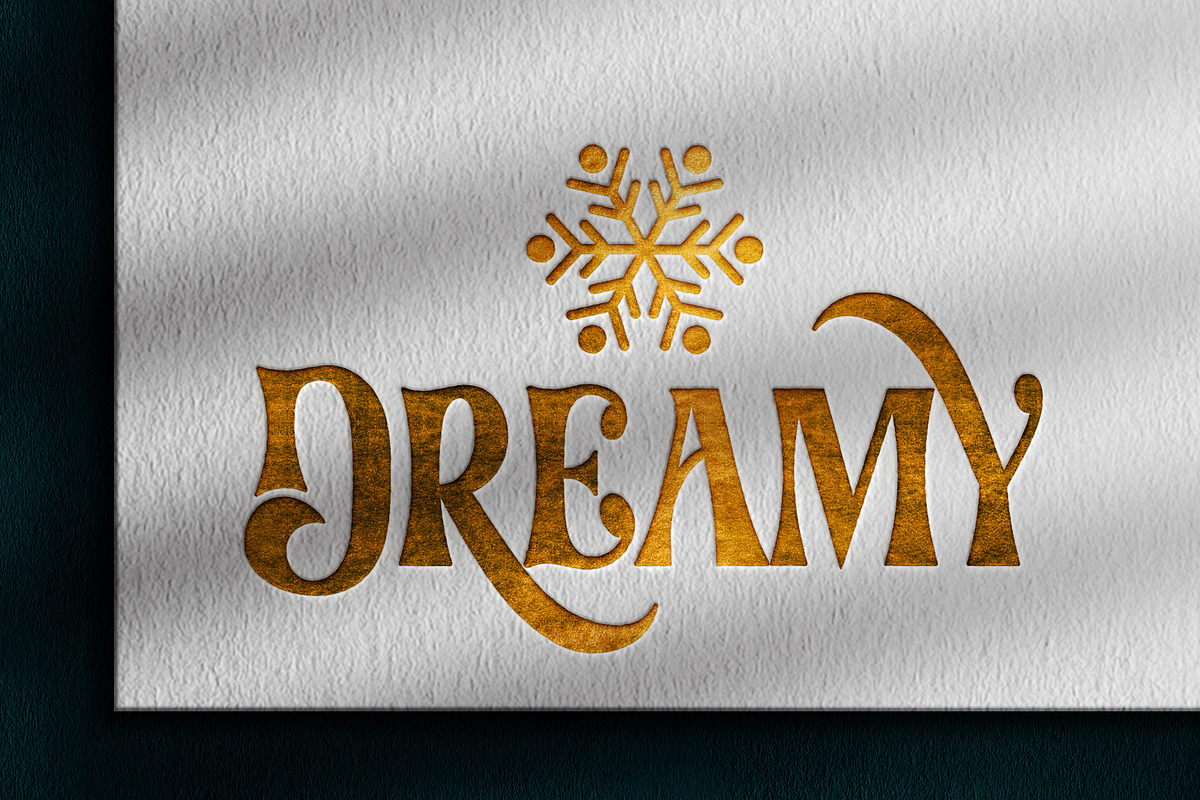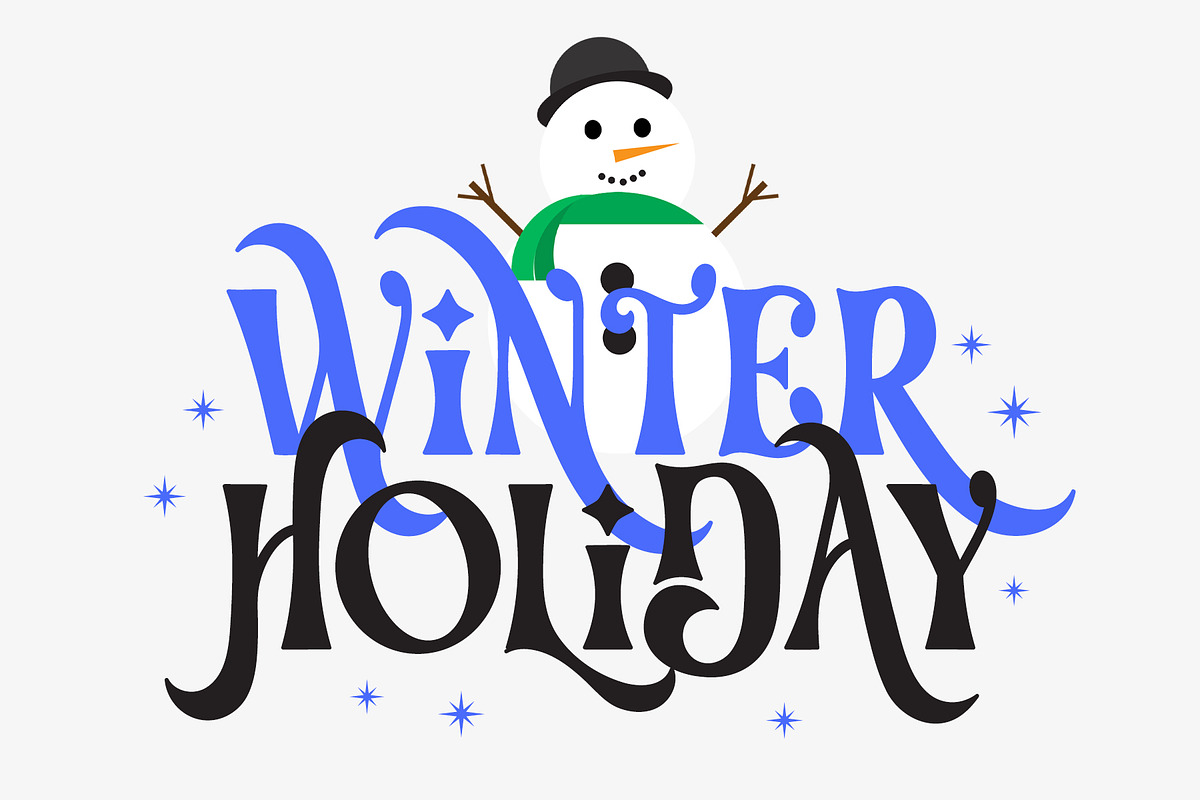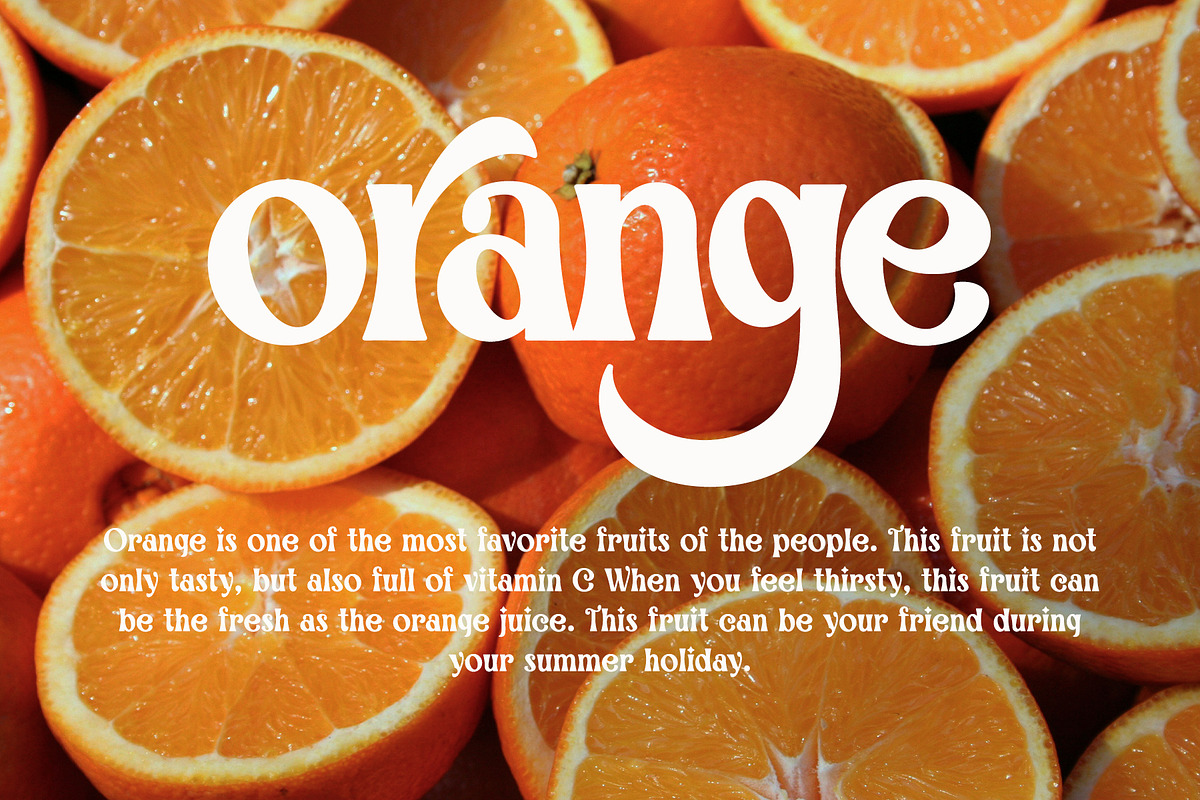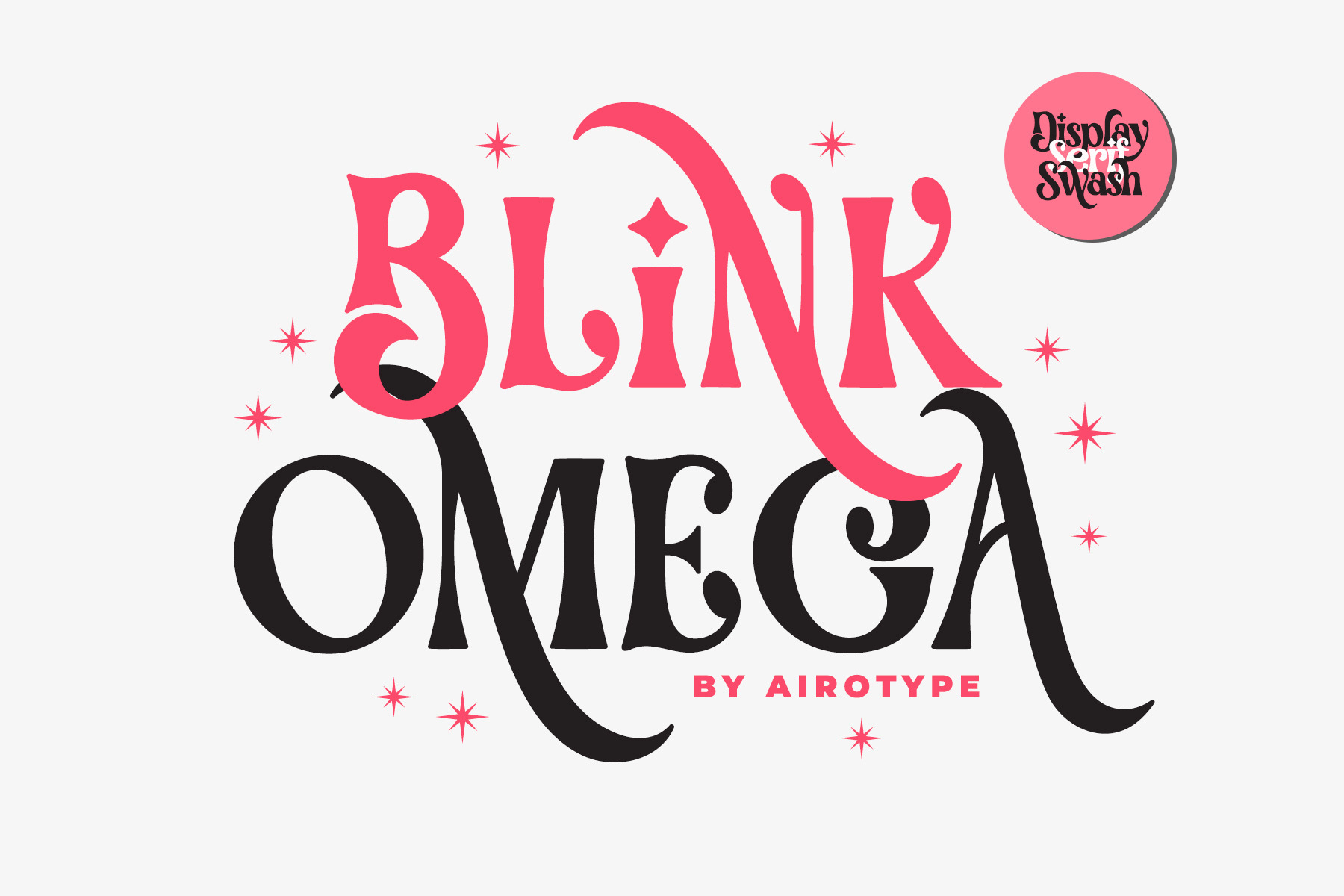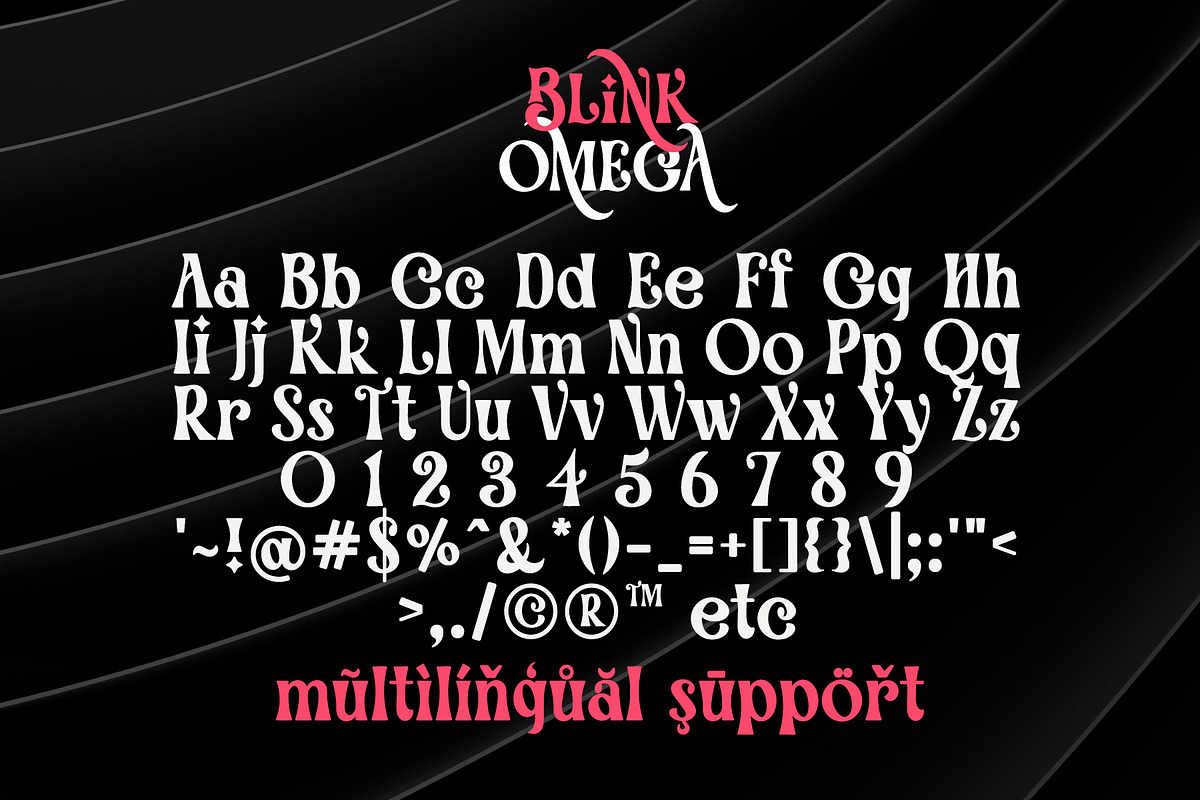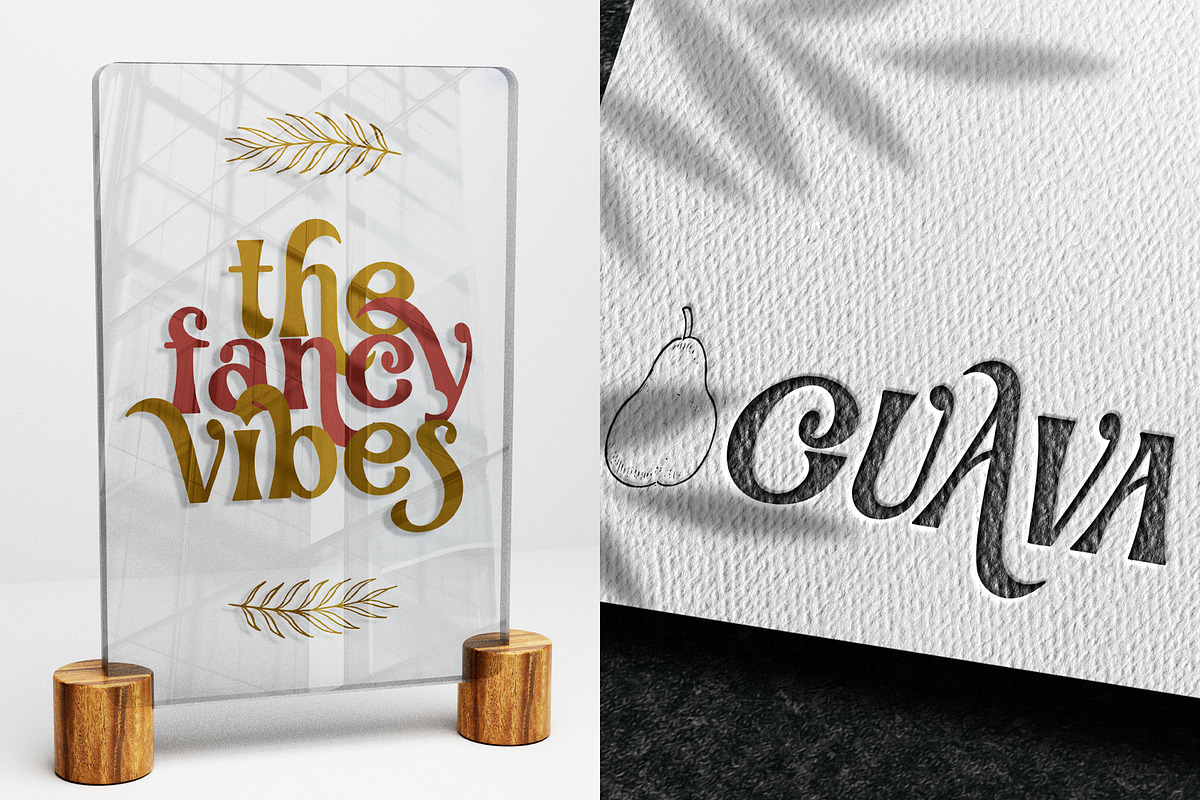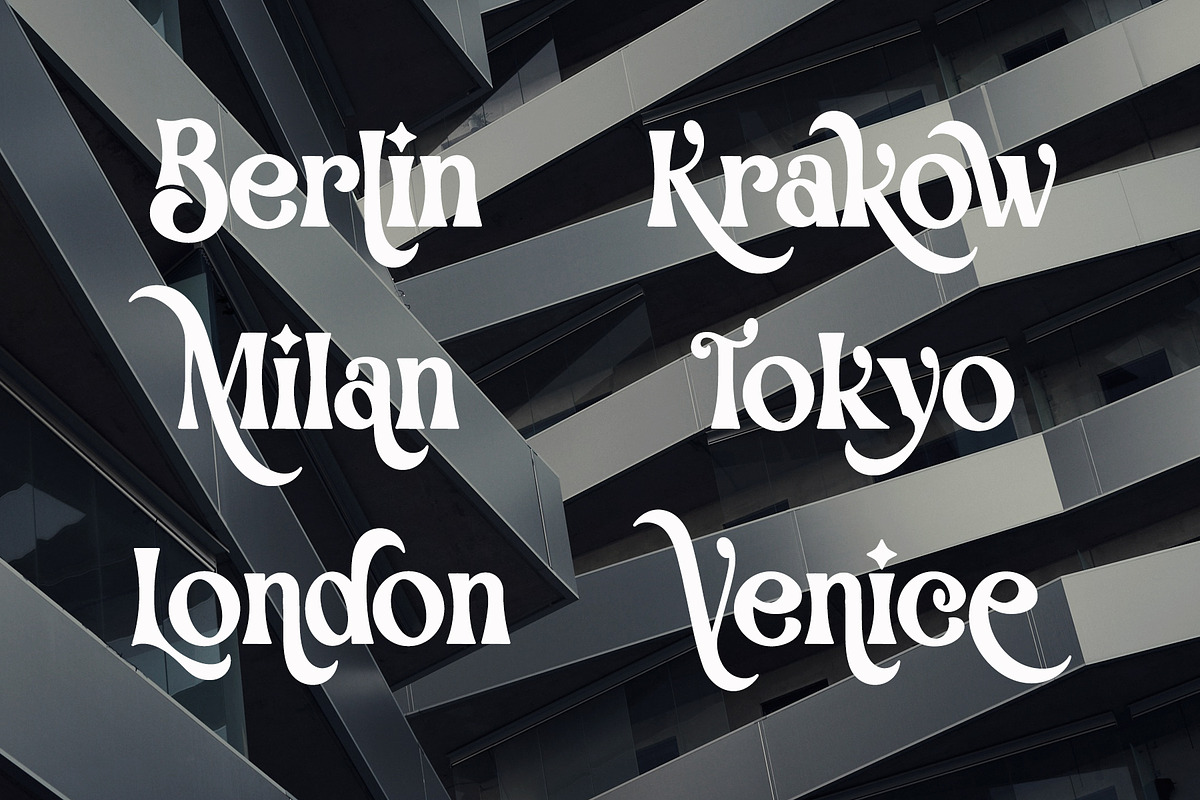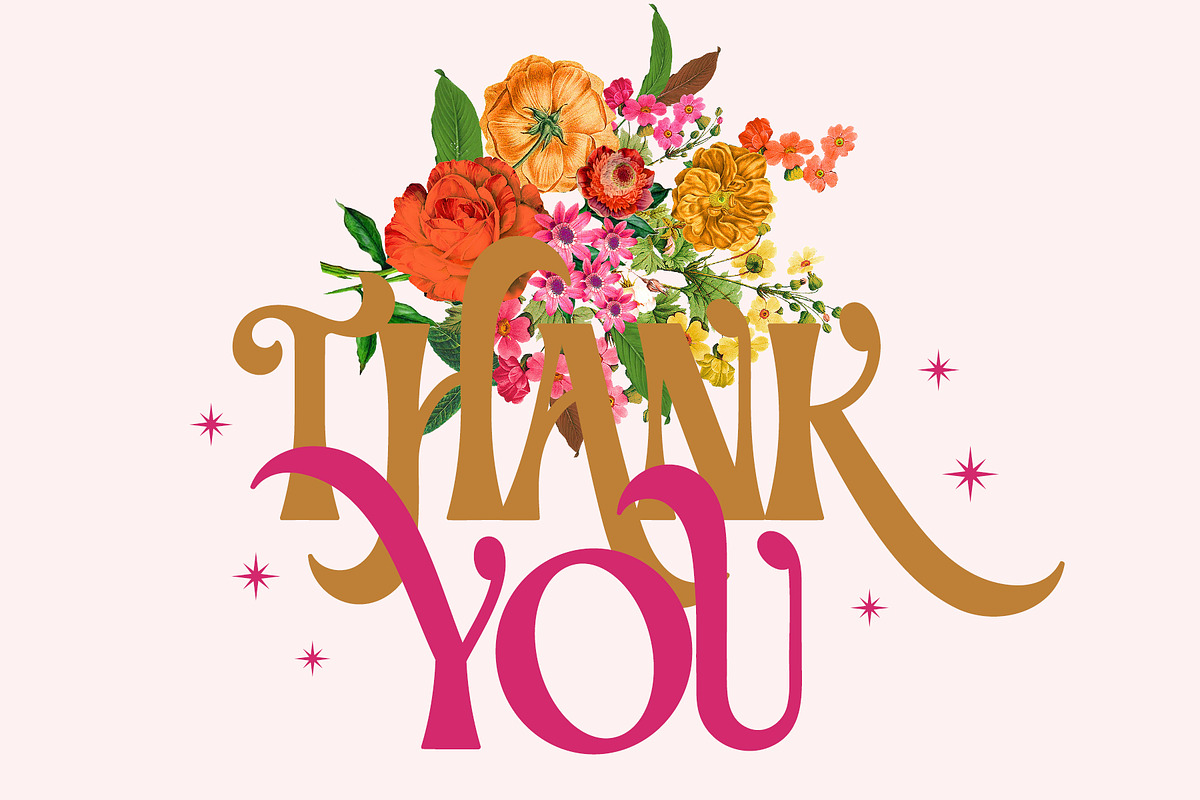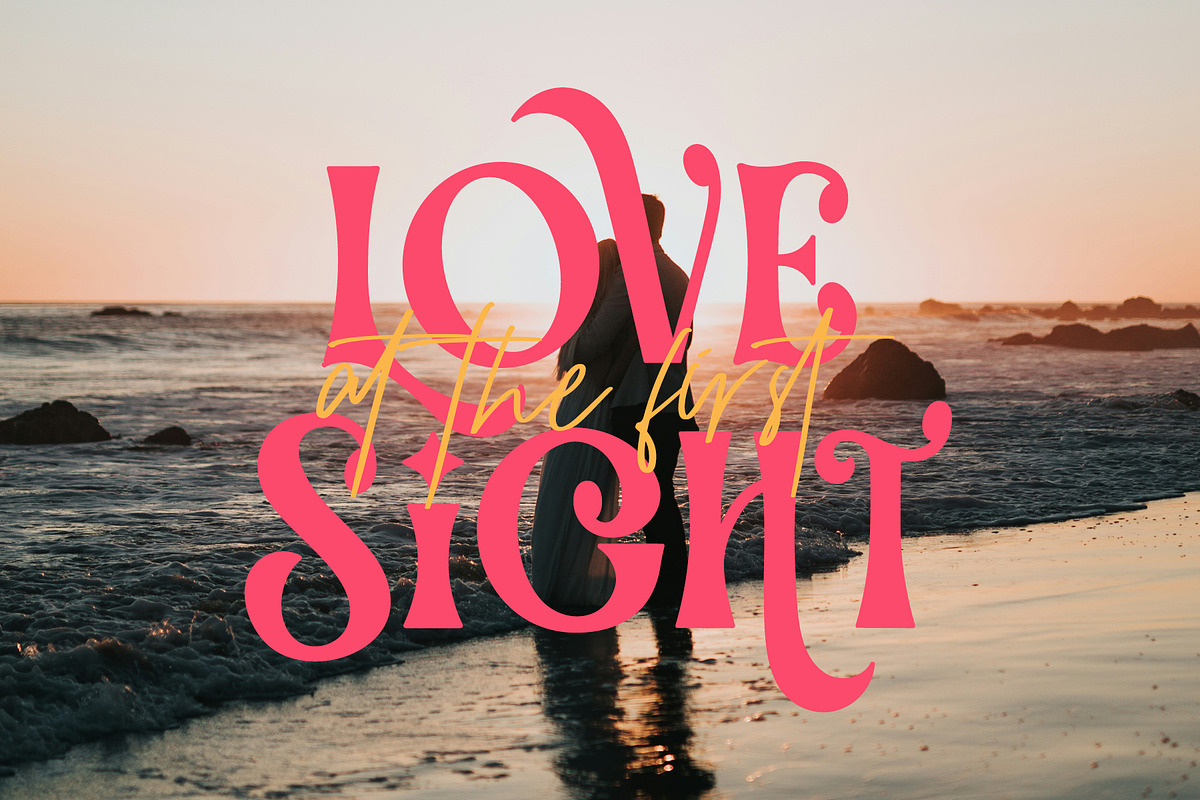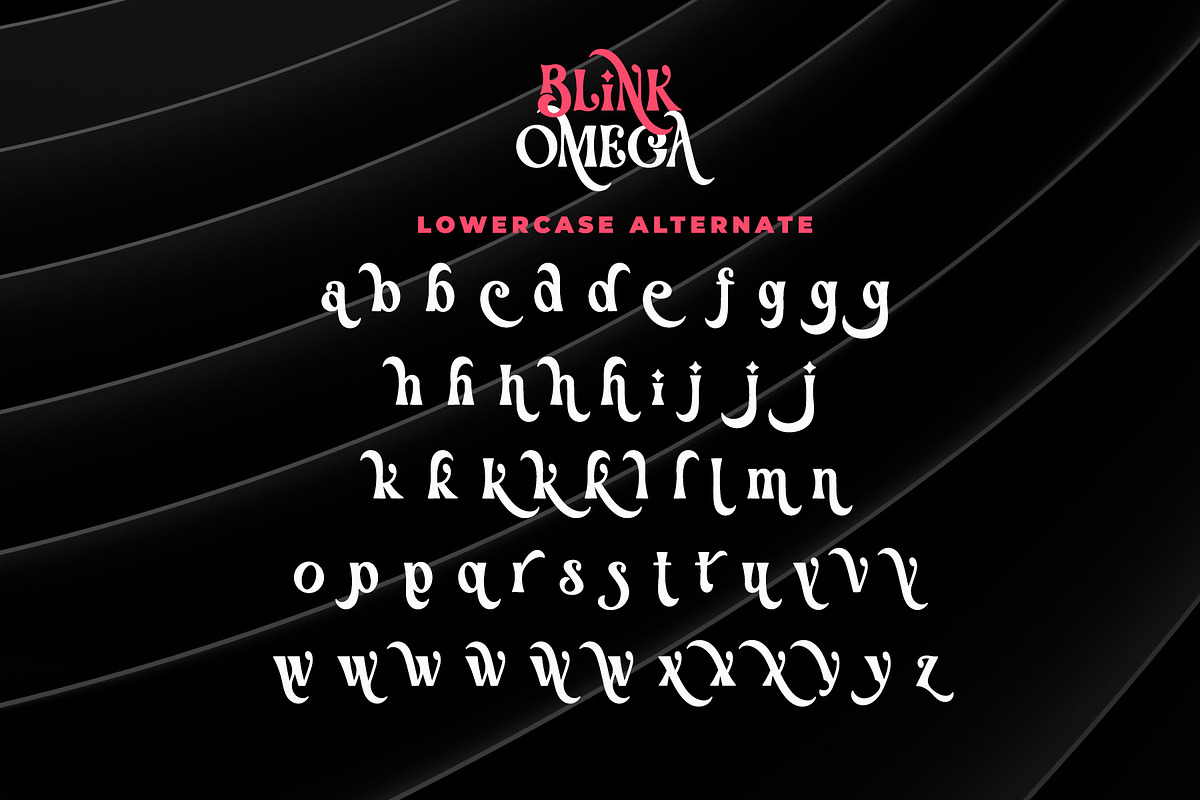
Blink Omega - Swash Serif Font
Blink Omega is stylish and luxury serif font. This font represents classy, elegant, and modern.
Blink Omega has extra alternate glyphs or swash that can be accessed with Font Book (Mac) or Character Map UWP (PC). Make sure you know how to access extra glyphs in the program you are using.
This font is luxury font for any projects with modern and elegant vibes, such as logo, crafting, wedding invitation, Christmas, thanksgiving, poster, branding, photography, sticker, sublimation, quotes, and many others.
- Uppercase and Lowercase (include PUA-Encoded extra glyphs)
- Most Multilingual Accent